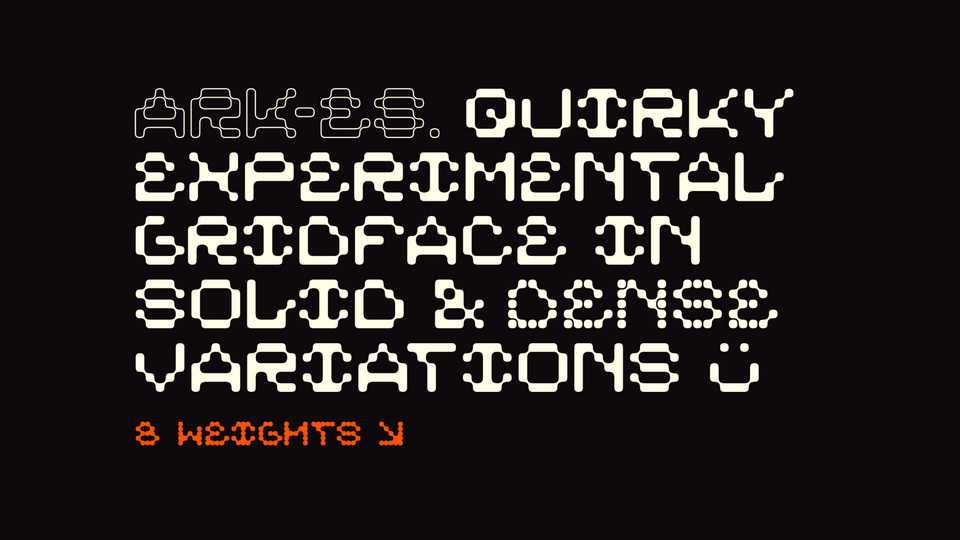
Download ARK-ES font, a quirky experimental display gridface in solid and dense variations and four weights. ARK-ES perfectly fits for posters, games, digital graphics, retro designs and other creative projects.
Designer: Eddie Stuart